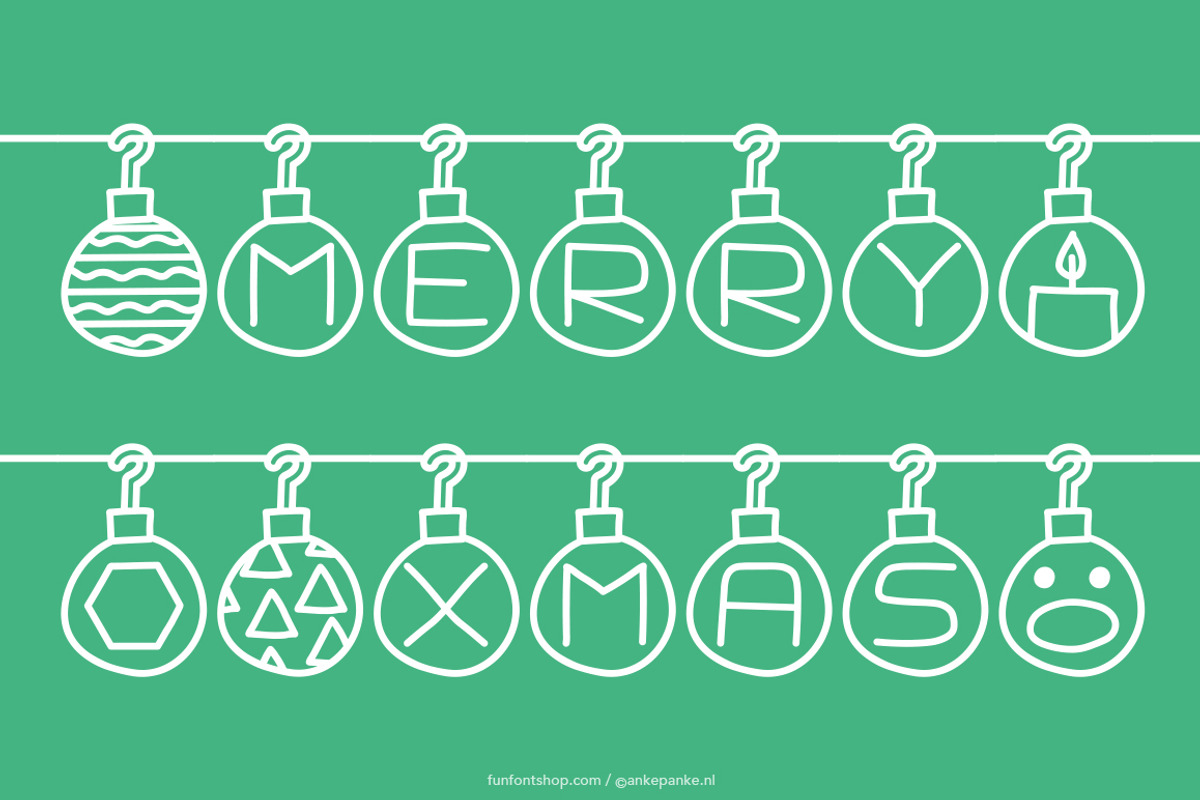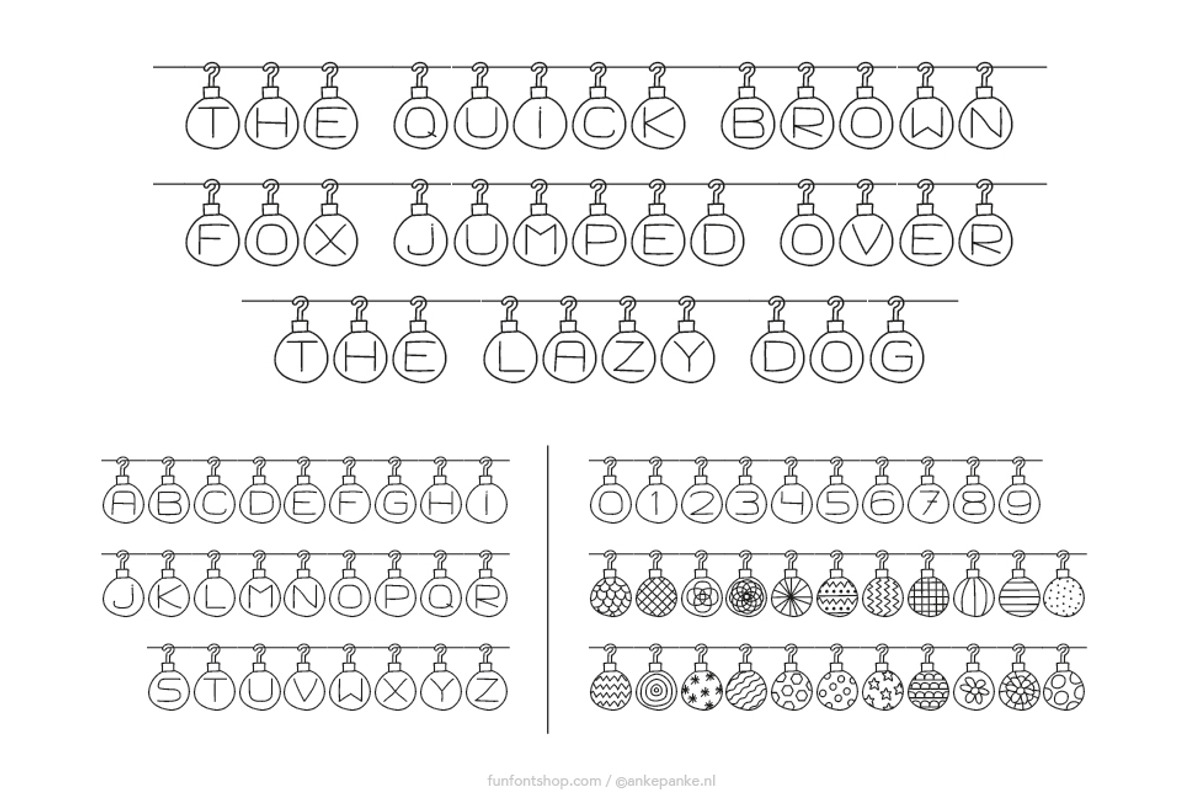
Merry Xmas Font
Merry Xmas Font by Fun Font Shop is a font selected for branding, posters, packaging, typography.
- About 50 different illustrated christmas ornaments Uppercase and numbers included Character legend included TTF files (suitable for Mac + PC
Why Merry Xmas Font is worth a look
Merry Xmas Font by Fun Font Shop fits naturally into Branding, posters, packaging, typography.